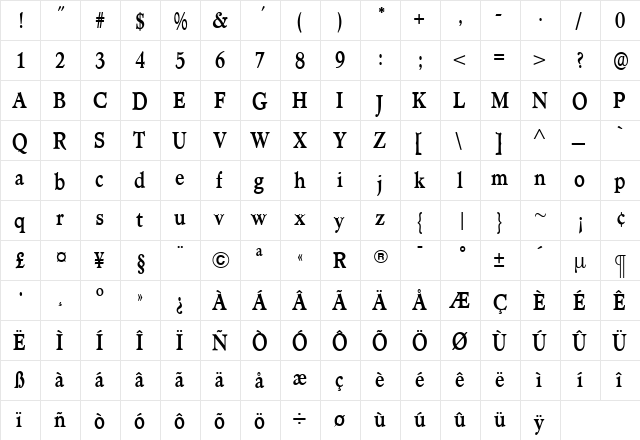
TCAdministerBoldCond Roman Font Preview
Design Context for TCAdministerBoldCond Typeface
TCAdministerBoldCond offers clean, dependable letterforms without strong stylistic allegiance, making it a practical choice for designers who need flexibility. Its bold stroke weight gives it real presence on the page. The condensed width makes it efficient for tight spaces without sacrificing legibility.